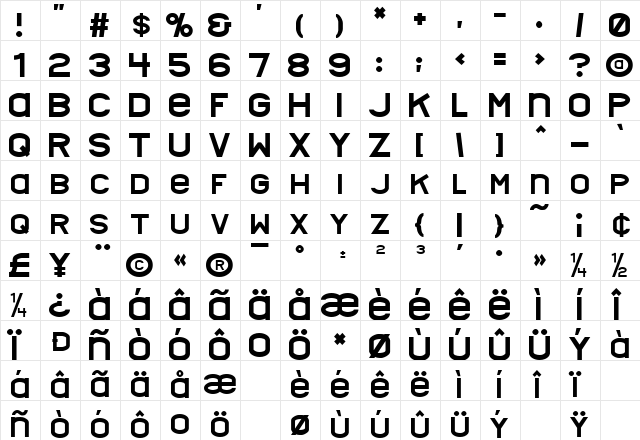
Nyctalopia Regular
Design Context for Nyctalopia Typeface
Nyctalopia is a composed and adaptable typeface that performs quietly and consistently across a wide range of design contexts.